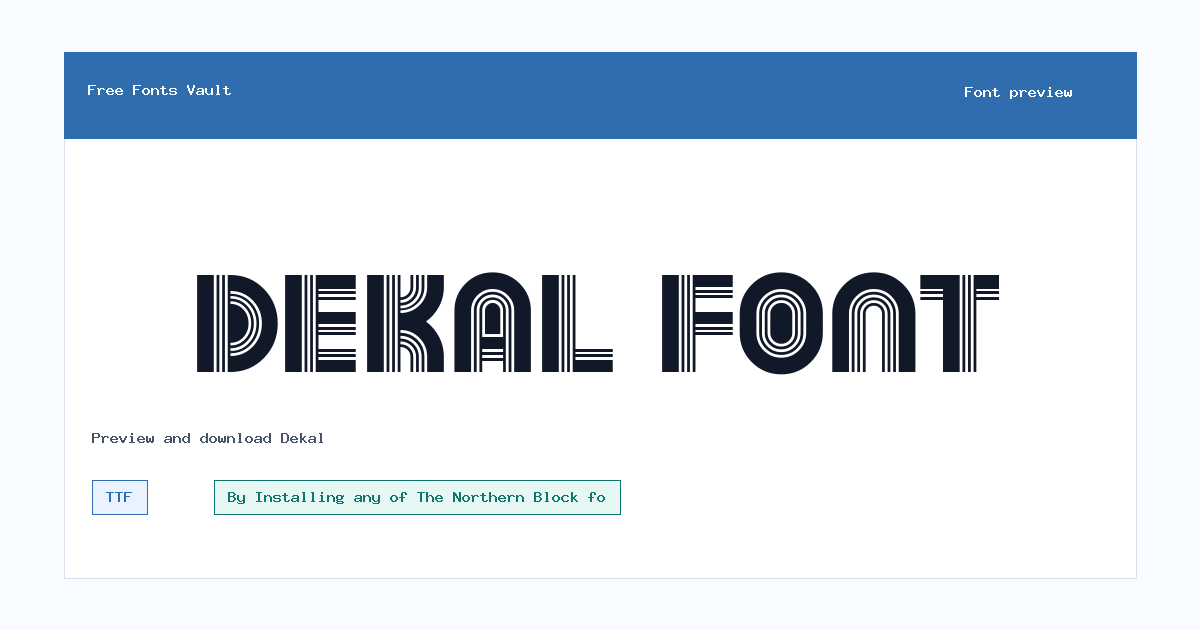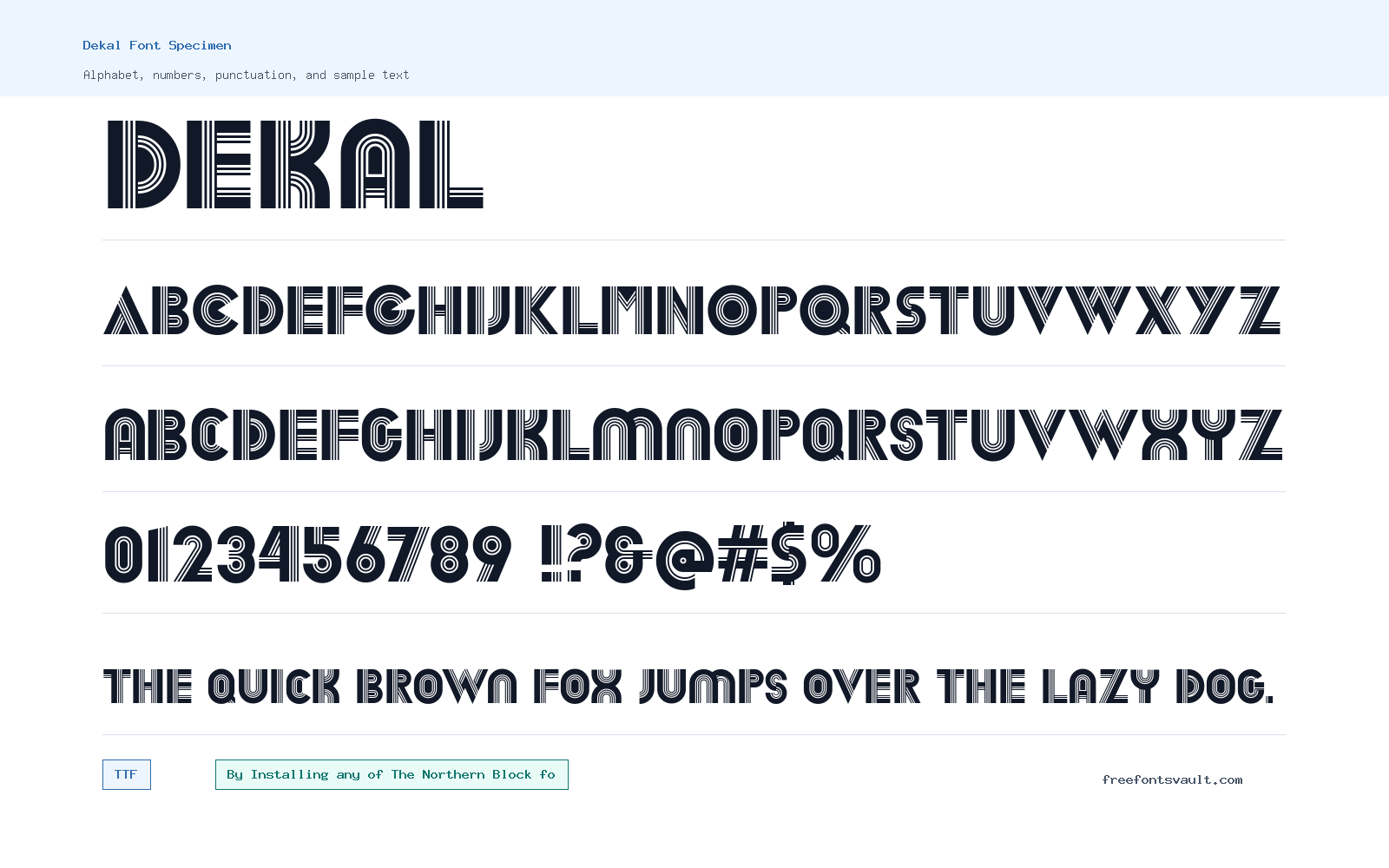
Dekal
Dekal is a striped display typeface with a strong late-1960s and early-1970s feel. Its parallel thick-and-thin line structure gives words a dimensional, dry-transfer look, making it most useful for short, high-impact typography rather than everyday reading.
Dekal was designed by Jonathan Hill for The Northern Block. The foundry describes it as a revival of Blackline, a typeface originally designed by Wolf Magin in 1969. Its character comes from stacked parallel lines that create a retro-future texture across each letter. The result feels graphic, mechanical, and decorative without needing extra effects.
Use Dekal where the lettering is meant to be noticed: posters, album-style graphics, packaging concepts, editorial titles, signage mockups, badges, stickers, and experimental brand headlines. Because the design depends on fine internal lines, test it at the exact size you plan to use. It can lose clarity in small UI labels, dense paragraphs, or low-resolution images, so keep it for short words, names, and display settings.
• Striped display letterforms built from thick and thin parallel lines
• Retro-future style inspired by dry-transfer lettering from the late 1960s and early 1970s
• Best suited to large headings, logos-in-progress, posters, and decorative title work
• Poster headlines
• Album-style artwork
• Packaging concepts
• Editorial titles
• Retro-future graphics
• Badges, stickers, and signage mockups
• Experimental branding tests
Dekal is credited to Jonathan Hill and The Northern Block, an independent type foundry founded by Hill.
For best results, preview Dekal in large sizes and with short text. Try uppercase titles, one-word marks, and compact phrases first. Pair it with a plain sans serif for body copy so the striped display letters can stay readable and visually distinct. Give Dekal generous spacing and a clean background so the parallel-line construction stays crisp instead of turning into visual clutter. Large display sizes show the stripe detail best.
What kind of font is Dekal?
Dekal is a retro striped display font. It is made for bold visual settings such as posters, titles, packaging concepts, and short decorative text.
Who designed Dekal?
Dekal is credited to Jonathan Hill and The Northern Block.
Is Dekal good for body text?
No. Dekal is better for short display text. Its internal line pattern can make long paragraphs or small interface text harder to read.